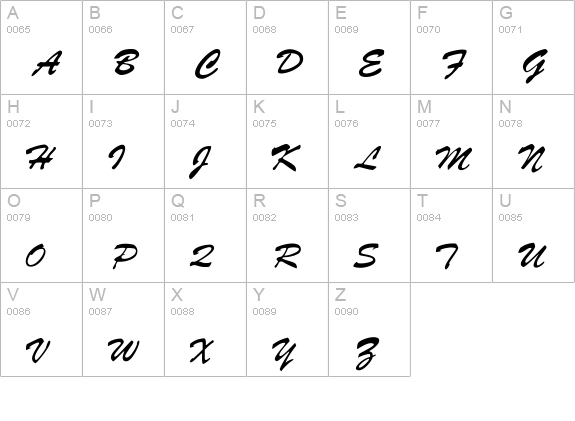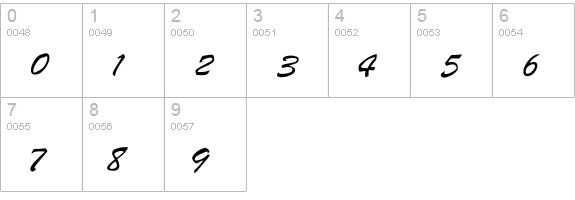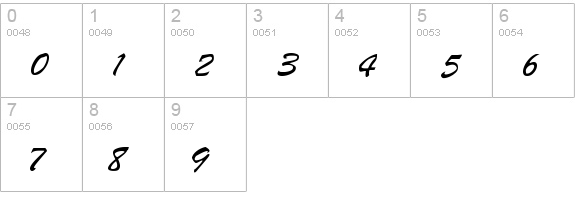
Style- Font Details
Introducing Style- font, a versatile and modern typeface that will elevate your designs to new heights. With its clean lines and elegant curves, Style- font exudes sophistication and style. Whether you're working on a branding project, designing a website, or creating a beautiful invitation, this font is sure to make a statement. The best part? Style- font is completely free to download at FontsMarket.com. Yes, you heard that right - you can access this stunning font at no cost, allowing you to bring your creative visions to life without breaking the bank. So why wait? Download Style- font today and add a touch of class to your next project.